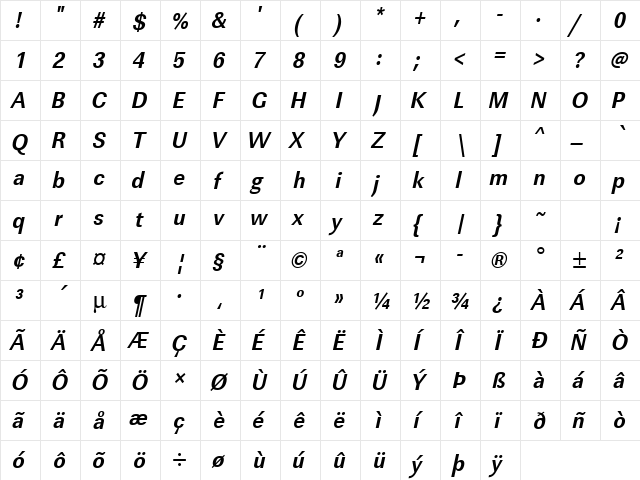
URWLinearTExtNar Bold Oblique Font Preview
| Style | Bold Oblique |
Design Context for URWLinearTExtNar Typeface
URWLinearTExtNar takes a measured approach to typography — its balanced proportions and neutral character make it a reliable workhorse for both digital and print work. Its italic angle brings a sense of urgency and motion to the letterforms. Its bold stroke weight gives it real presence on the page.
Pro Tip: Try URWLinearTExtNar for annotation and caption copy alongside an upright companion — the contrast in angle creates a dynamic but ordered typographic system.